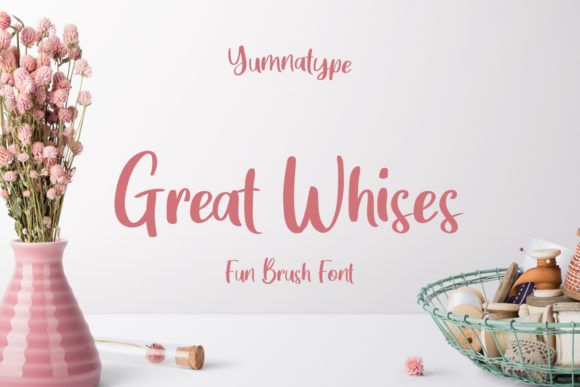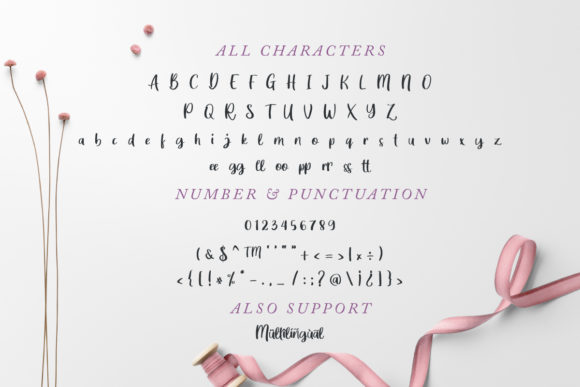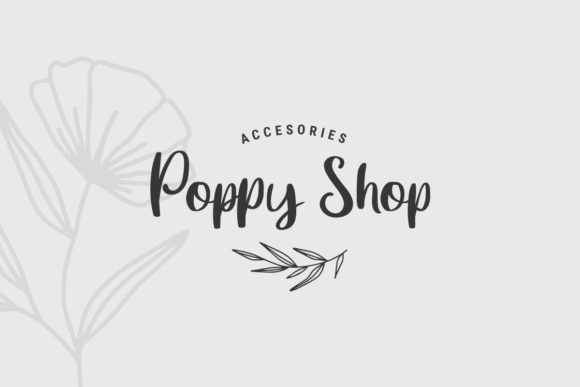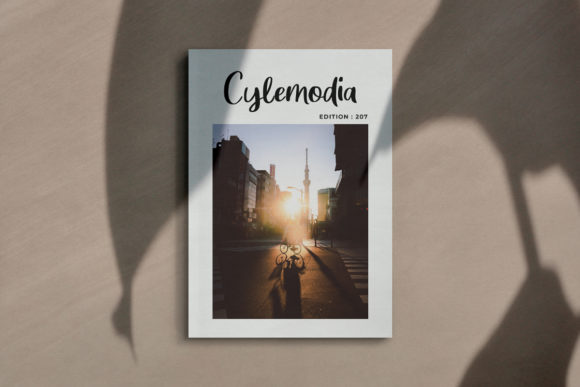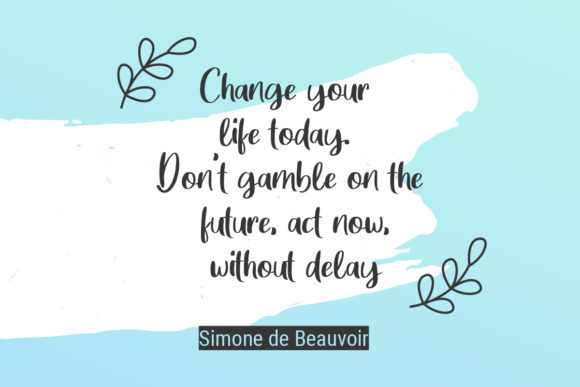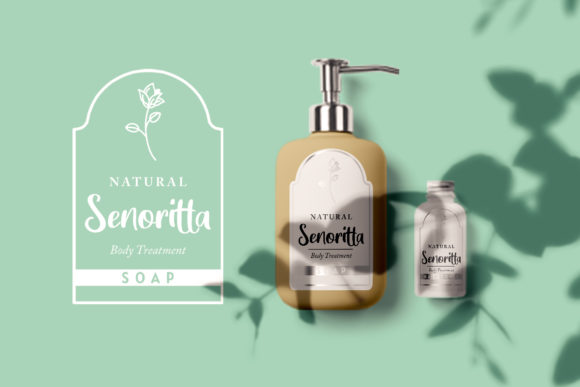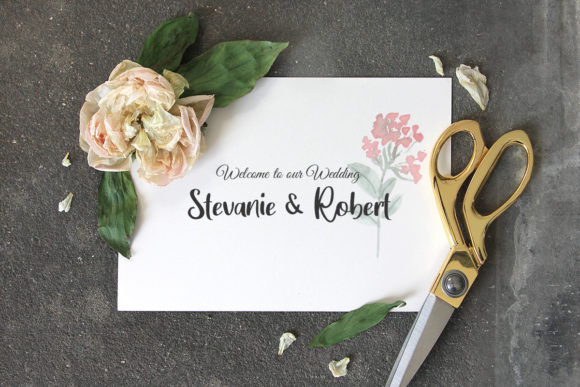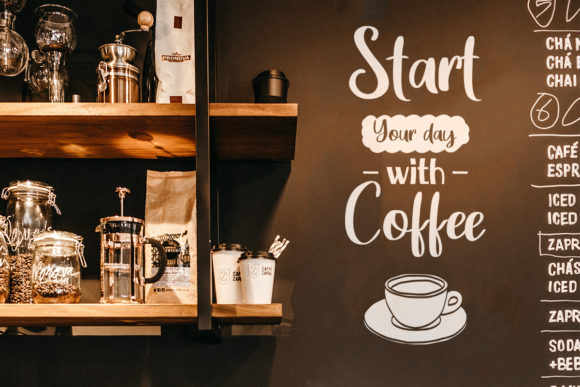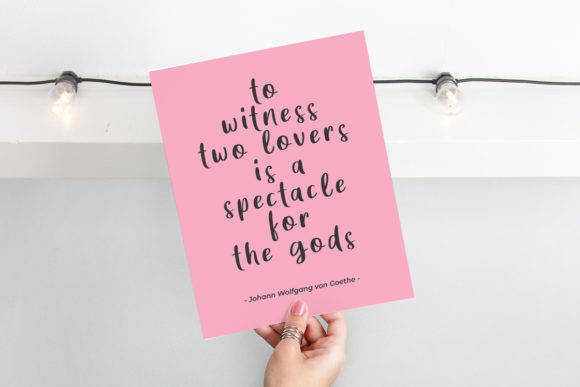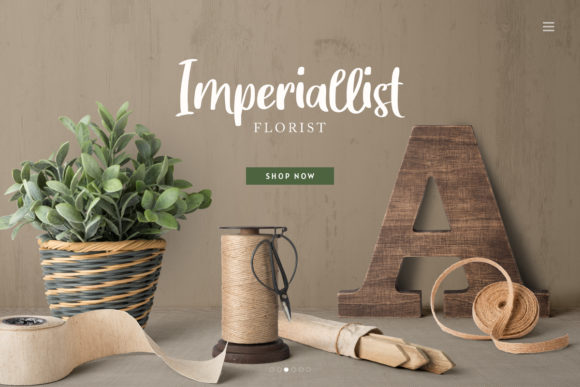
Great Wishes Font
About Great Wishes Font
Great Wishes is a truly cute and lovely script font that radiates sweetness. Fall in love with its playful charm, and turn any design project into a masterpiece!